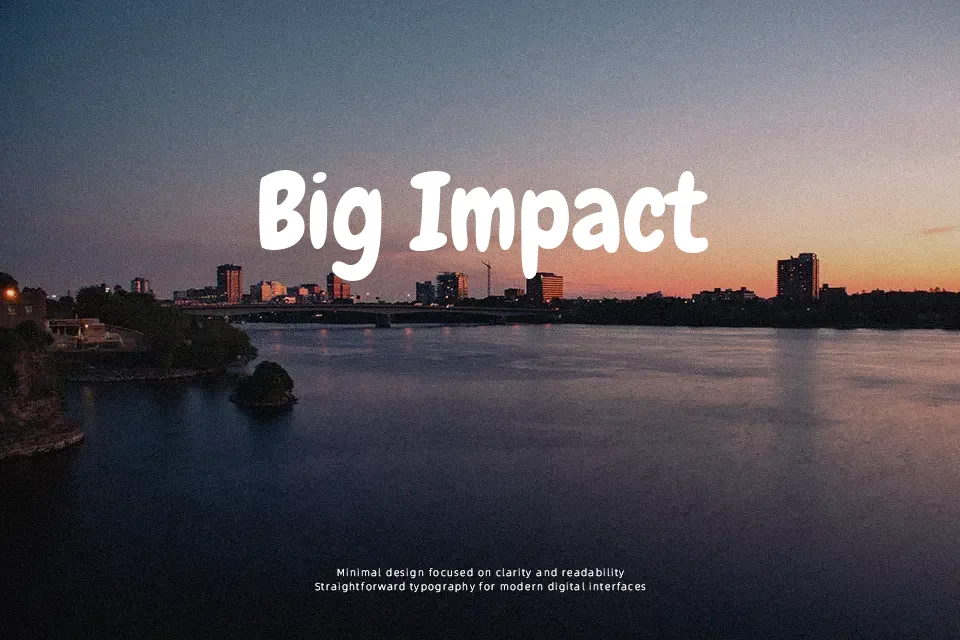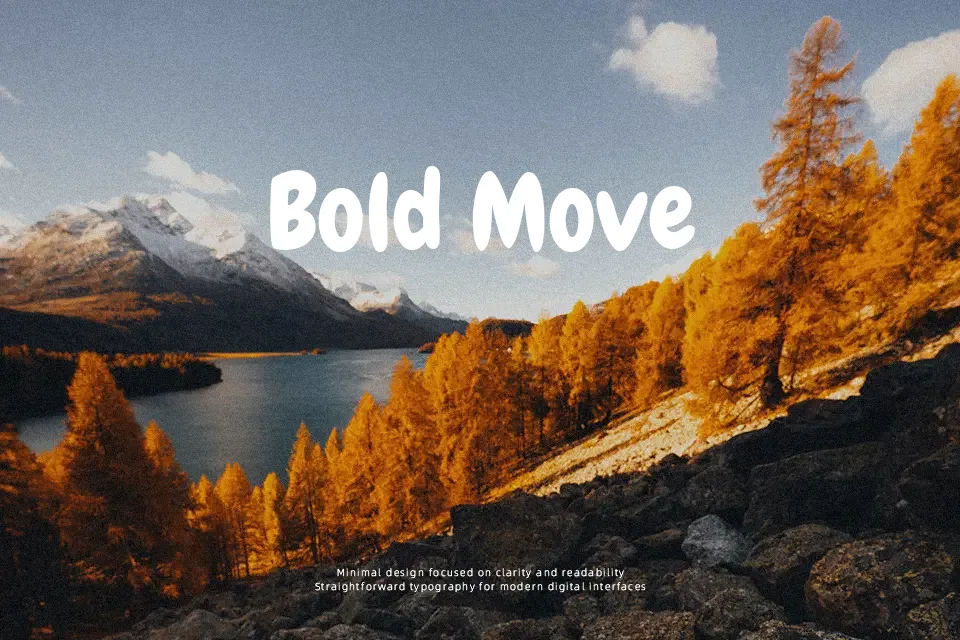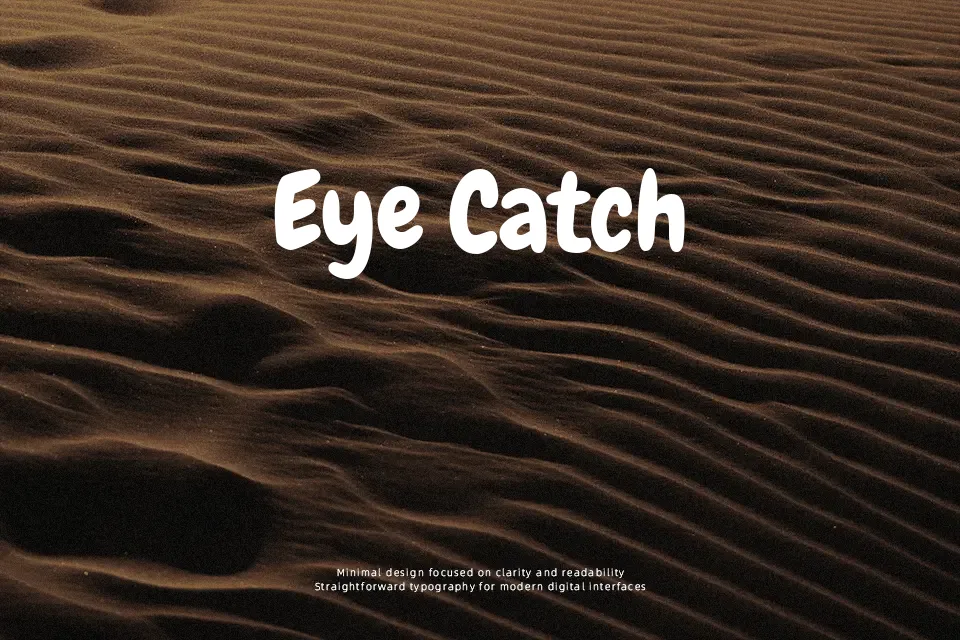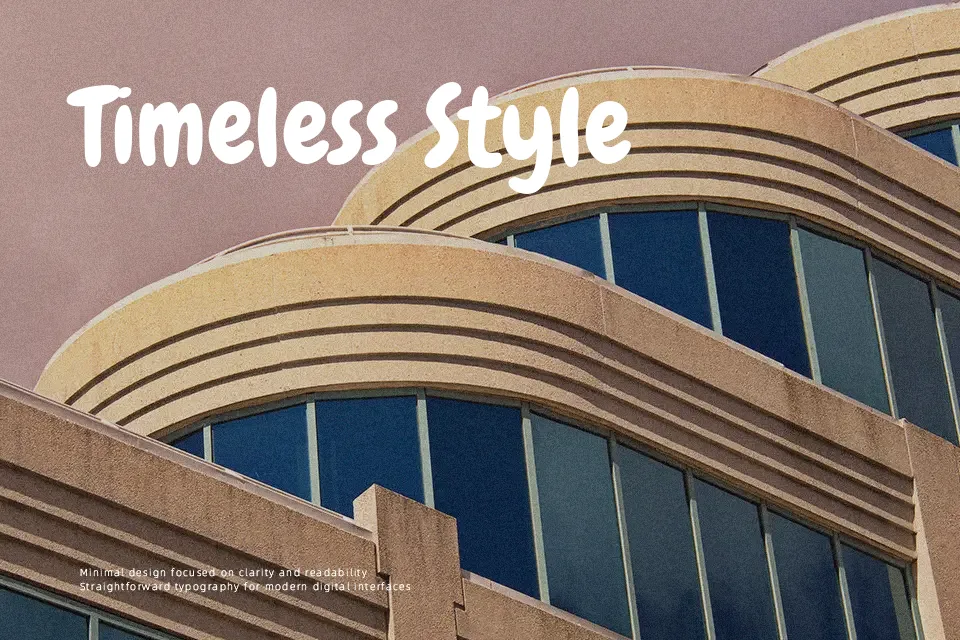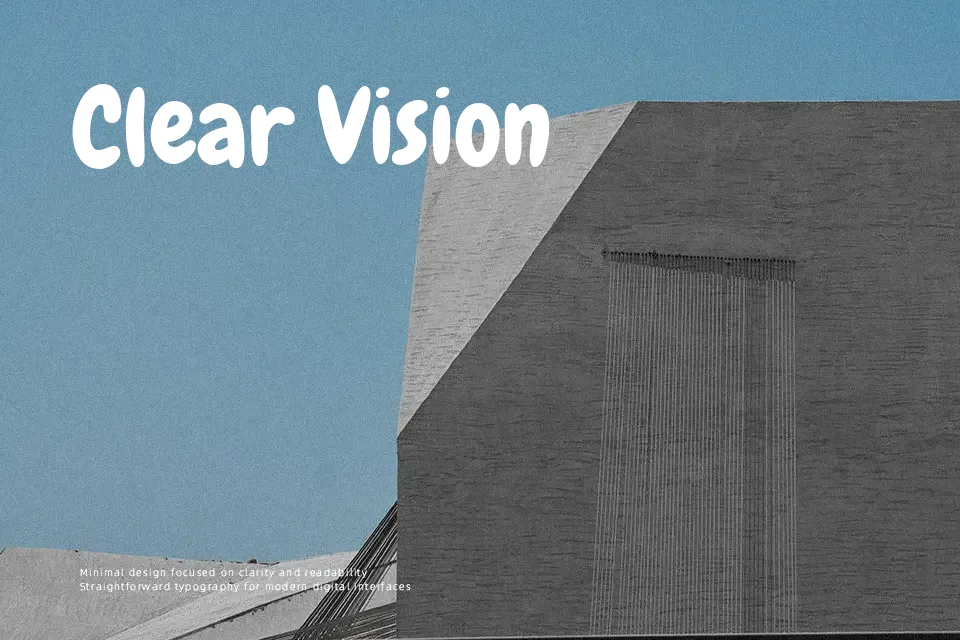
Chewy Font
Chewy grabs attention through its heavy, blobby stroke weight, exaggerated curves, and tight letter spacing that give the typeface an almost squeezable, tactile quality. The rounded terminals and informal weight distribution feel like a hybrid between a comic book title and vintage candy wrapper lettering — casually bold, visually warm, and a little retro around the edges. It performs best in short bursts: a mascot name, a snack brand for kids, a game title screen, or a social media graphic that needs immediate visual impact. Where it falls apart is in contexts requiring credibility or restraint — corporate headers, editorial body text, or premium product branding would quickly feel mismatched. Compared to rounder typefaces like Lilita One, Chewy carries more of a hand-drawn irregularity that adds charm at display sizes but limits versatility.
kids product packaging,
cartoon-style logo design,
YouTube thumbnail text,
gaming UI headlines
long-form body text,
formal or corporate branding,
luxury product labels
Perfect for branding, kids, and logo, with a bold and cartoon style.